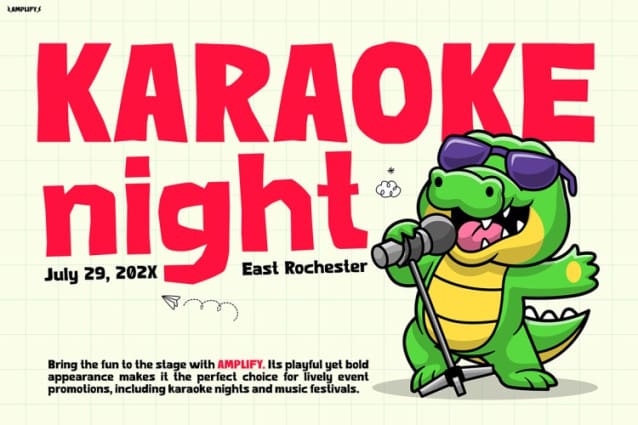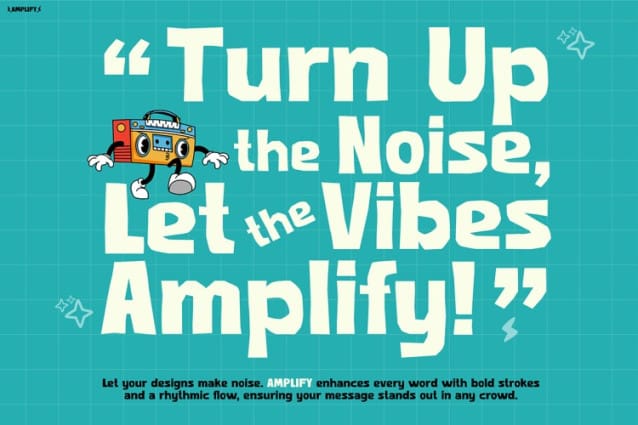
Amplify Display Font
Amplify Display Font is a dynamic, energetic typeface that brings excitement to any project. With bold, playful letterforms and a slightly irregular structure, it captures the spirit of fun, creativity, and movement. Moreover, inspired by live performances, music festivals, and modern entertainment, Amplify ensures your message stands out. Whether you use it for event promotions, album covers, or social media graphics, it delivers high-impact visuals.
The thick, expressive strokes give Amplify Display a strong presence while keeping a friendly look. Additionally, its hand-drawn style adds personality and warmth, making it perfect for designs that communicate enthusiasm and joy. Whether in digital or print, Amplify remains readable while also adding a playful edge that keeps viewers engaged.
Furthermore, its versatility makes it ideal for eye-catching headlines, branding, and marketing materials. With its vibrant character, Amplify works across various platforms, helping designers create compelling visuals that truly resonate with audiences.